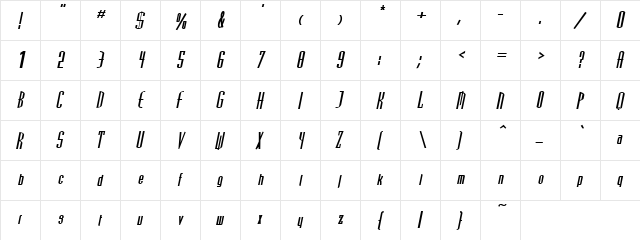
LongevousExpand Oblique
Design Context for LongevousExpand Typeface
LongevousExpand is a composed and adaptable typeface that performs quietly and consistently across a wide range of design contexts. Its italic angle brings a sense of urgency and motion to the letterforms.